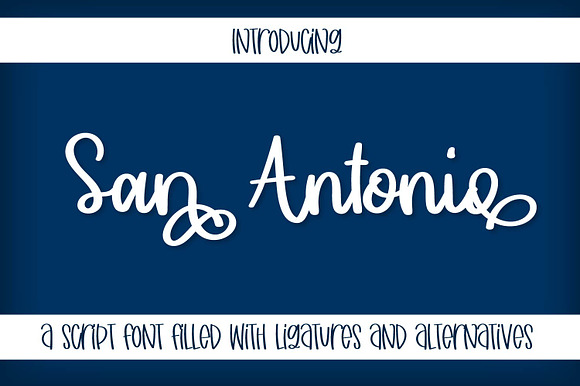
San Antonio - Script Font
San Antonio Script Font by CraftyLittleNodes is a font selected for branding, posters, packaging, typography.
Why San Antonio - Script Font is worth a look
San Antonio - Script Font by CraftyLittleNodes fits naturally into Branding, posters, packaging, typography.